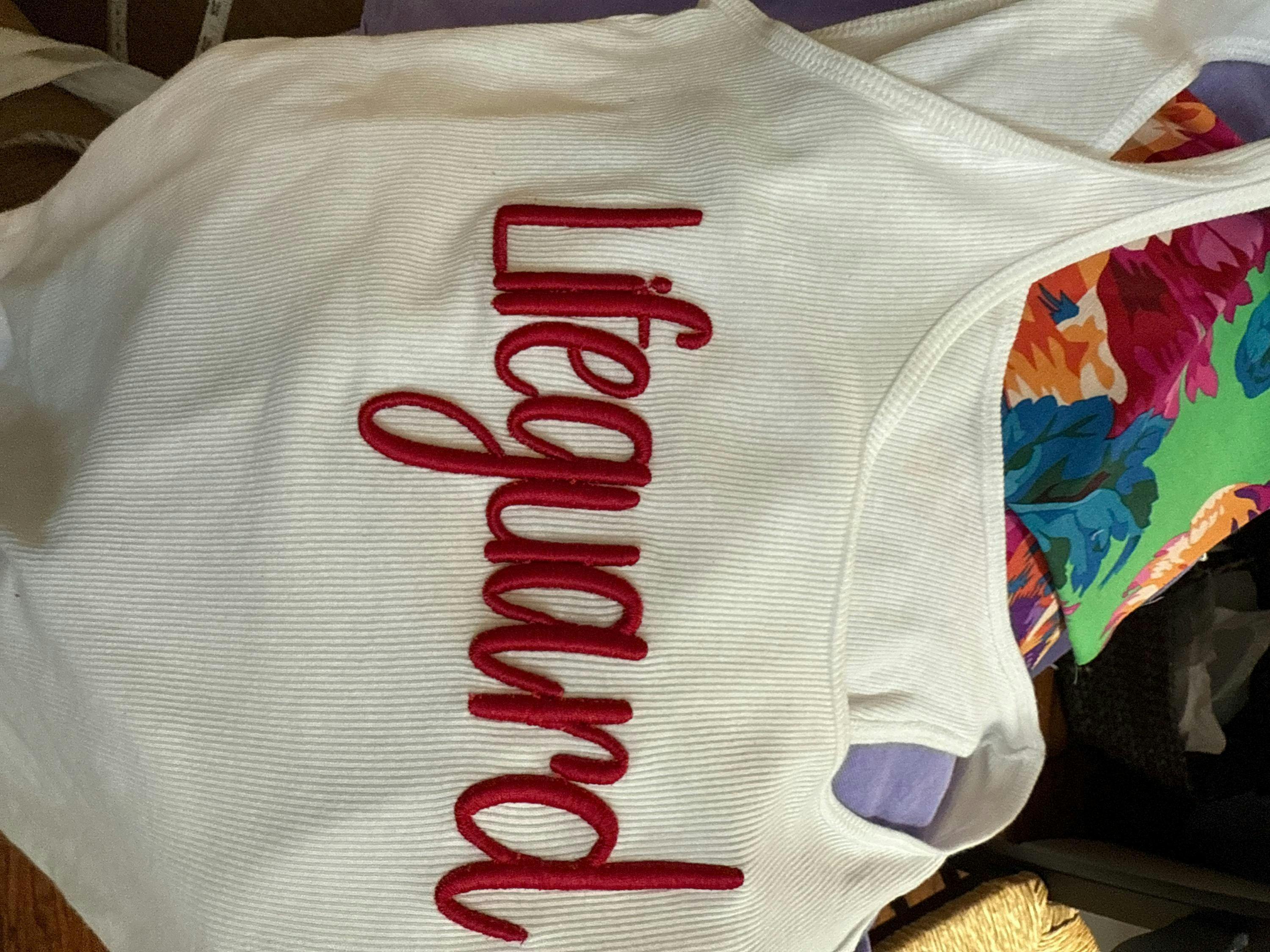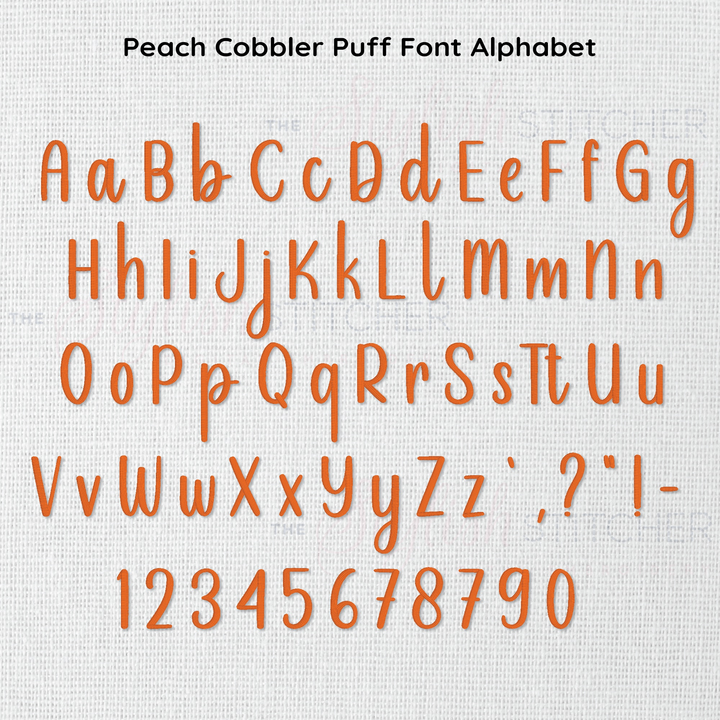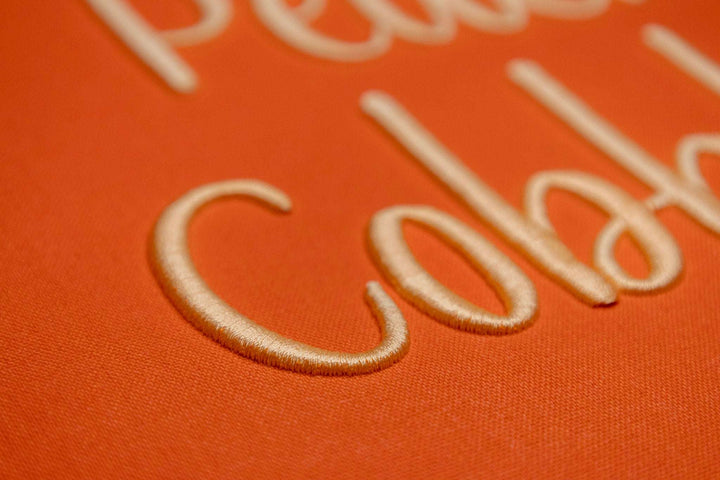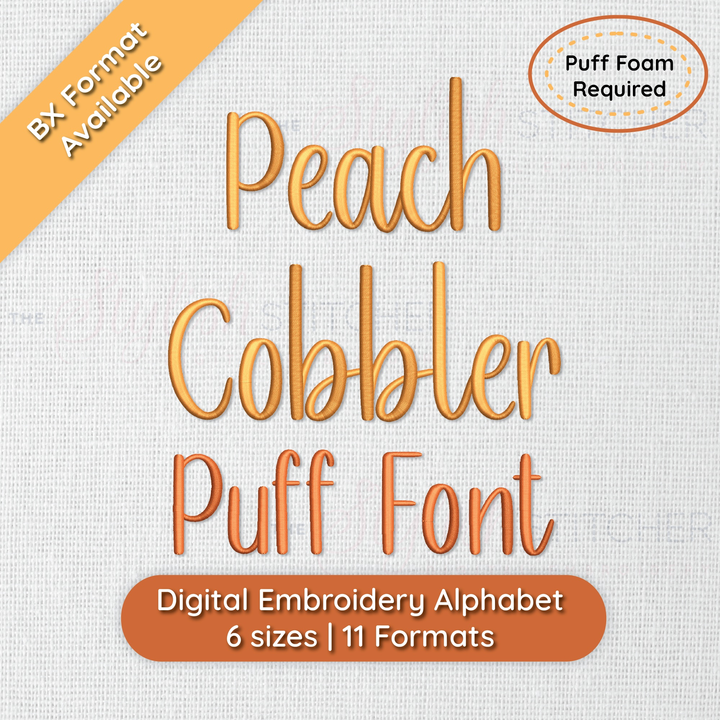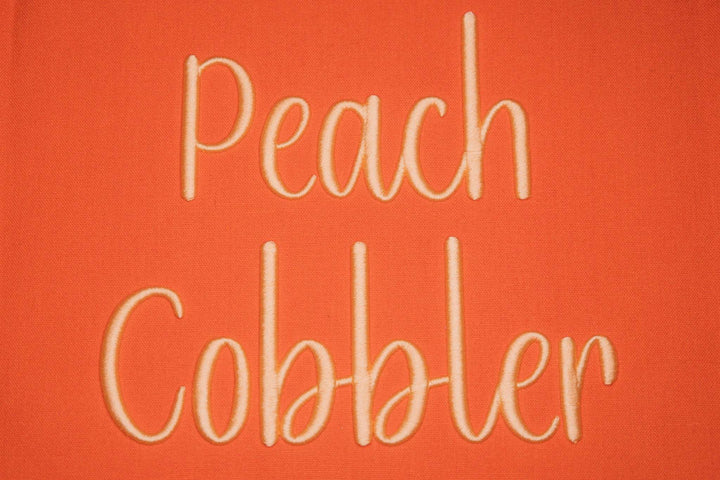
Photograph of stitched out Peach Cobbler Puff embroidery font
Video showcasing machine stitching of  Peach Cobbler Puff font
Photograph of stitched out Peach Cobbler Puff embroidery font alphabet
Close up photograph of stitched out Peach Cobbler Puff embroidery font
Peach Cobbler 3D Puff Digital Embroidery Font
Peach Cobbler is the perfect blend of charm and texture, bringing a delightful rise to your embroidery projects. Its soft curves and playful loops are elevated by the puff foam technique, adding a touch of dimension that feels as satisfying as a warm, homemade dessert. Whether you’re stitching up a cozy kitchen towel or a whimsical apron, Peach Cobbler brings a dash of sweetness and personality to every piece.
Peach Cobbler 3D Puff Digital Embroidery Font Specs:
Included: Uppercase Letters, Lowercase Letters, 6 Punctuation, Numbers
Stitch Type: Satin Stitch for 3D Puff
Peach Cobbler is the perfect blend of charm and texture, bringing a delightful rise to your embroidery projects. Its soft curves and playful loops are elevated by the puff foam technique, adding a touch of dimension that feels as satisfying as a warm, homemade dessert. Whether you’re stitching up a cozy kitchen towel or a whimsical apron, Peach Cobbler brings a dash of sweetness and personality to every piece.